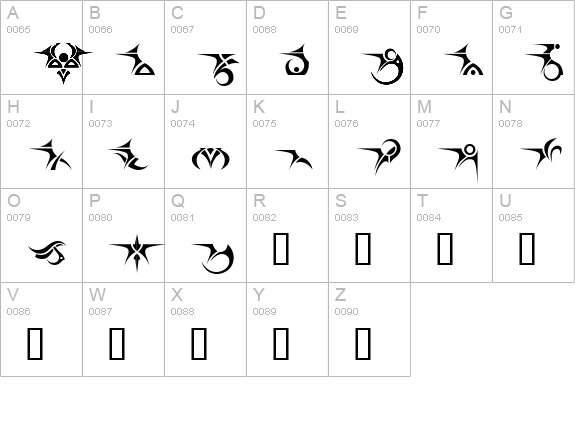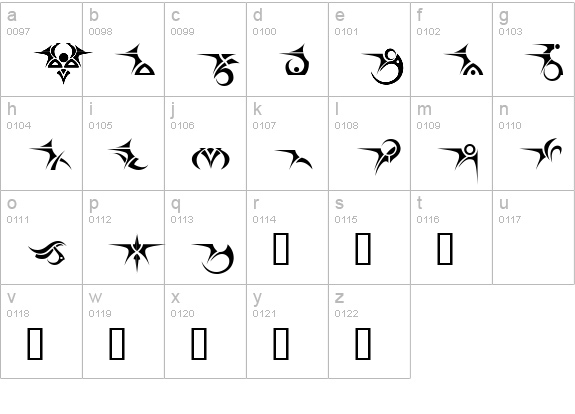
Tattooz 1 Font Details
Tattooz 1 font is a unique and edgy typeface that is perfect for any design project that requires a bold and rebellious look. This font features intricate and intricate tattoo-inspired lettering that will make your designs stand out from the crowd. With its sharp and detailed lines, Tattooz 1 font adds a touch of attitude and personality to any text. Whether you're designing a tattoo, a logo, a poster, or any other creative project, this font will give your work a distinctive and eye-catching look. The best part is that Tattooz 1 font is free! Yes, you heard it right. This amazing font is freely available to download at FontsMarket.com. You don't have to spend a dime to get your hands on this incredible typeface. So why wait? Download Tattooz 1 font now and let your creativity run wild. Whether you're a professional designer, a tattoo artist, or simply someone who loves experimenting with fonts, this is a must-have addition to your font collection. With its unique and artistic design, Tattooz 1 font is sure to make a lasting impression on anyone who sees it. So go ahead and download this free font today and take your designs to the next level.